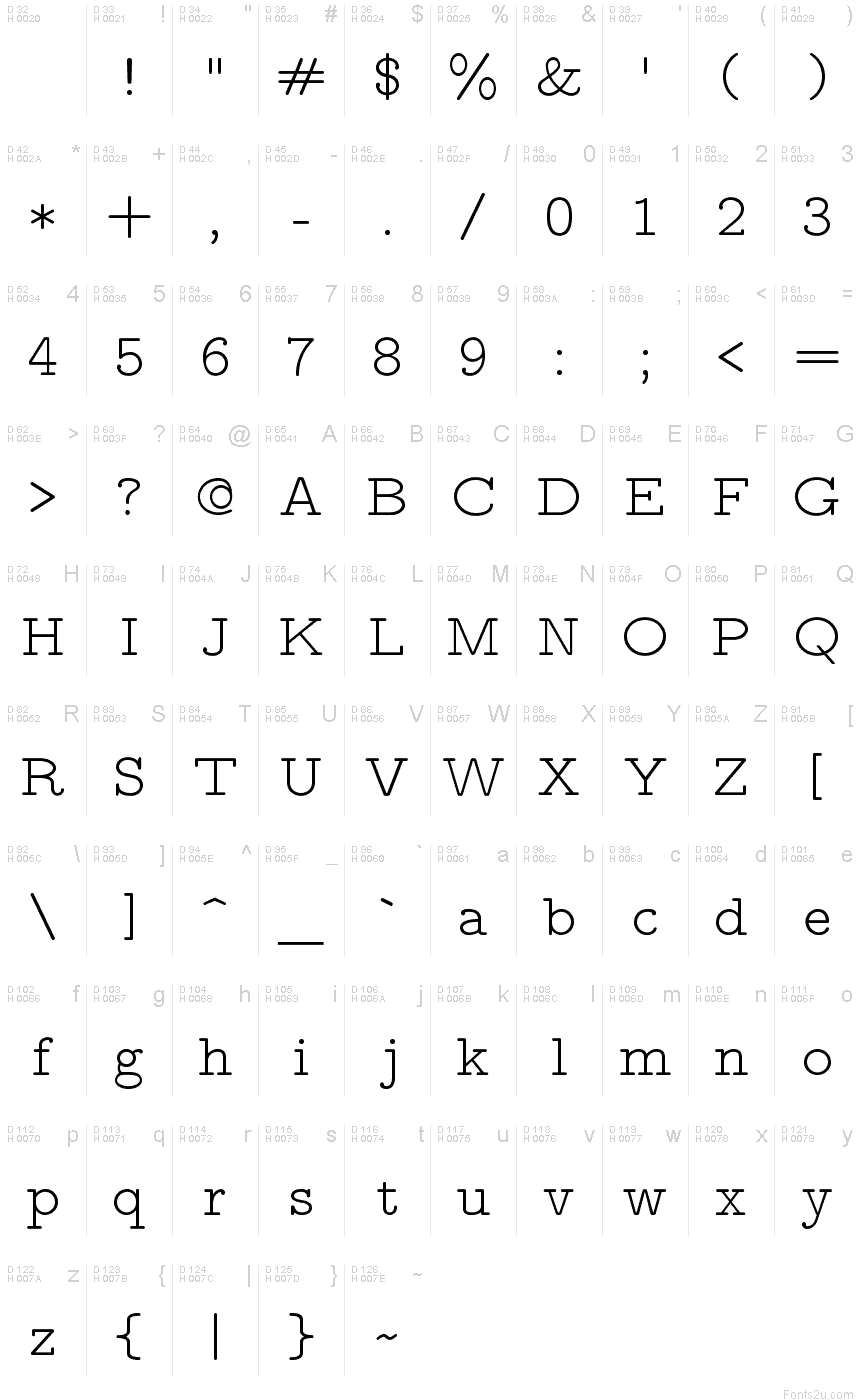
LMMonoPropLt10 by B. Jackowski and J. M. Nowacki of the TeX users groups is a free light typewriter serif with crisp, economical drawing. Its narrow strokes shift gently between fine and firm lines, and the flat serifs keep the letters orderly. Rounded forms soften the mechanical structure.
Technical publishing is its strongest setting, especially for code examples and mathematical documentation, where the restrained typewriter character feels appropriate. The same measured construction suits software manuals, academic journals, and editorial sidebars, giving specialized material a quietly traditional typographic voice.